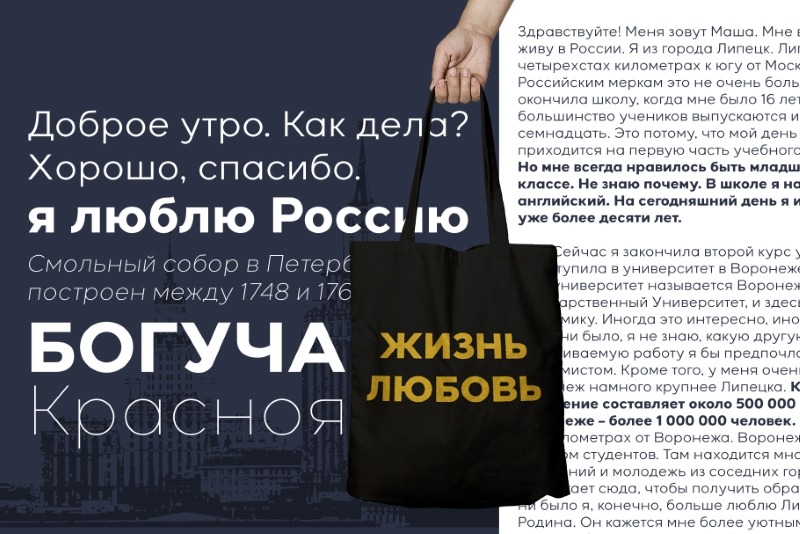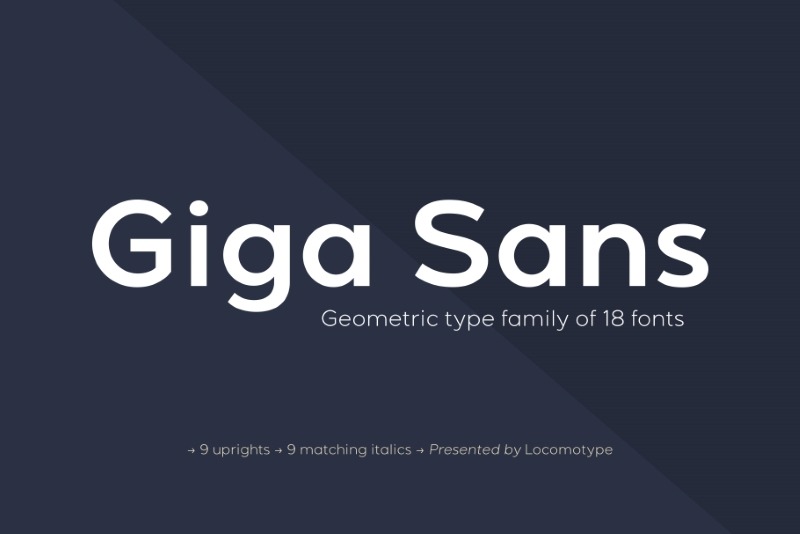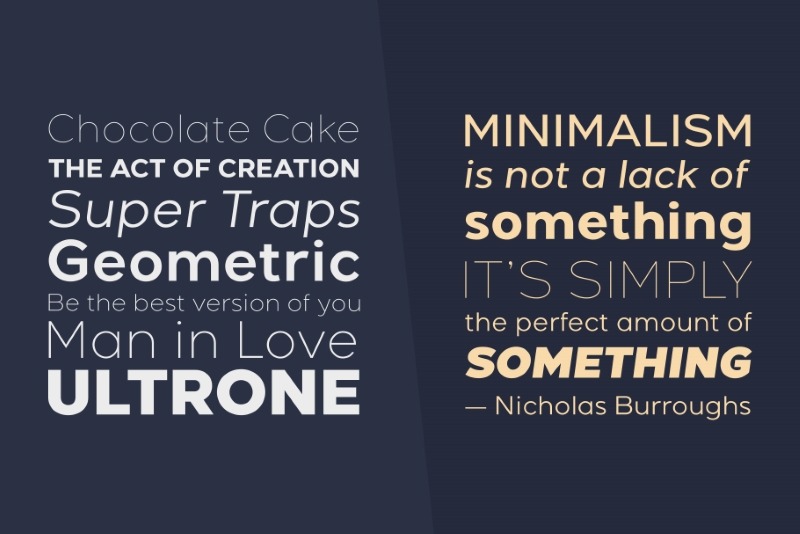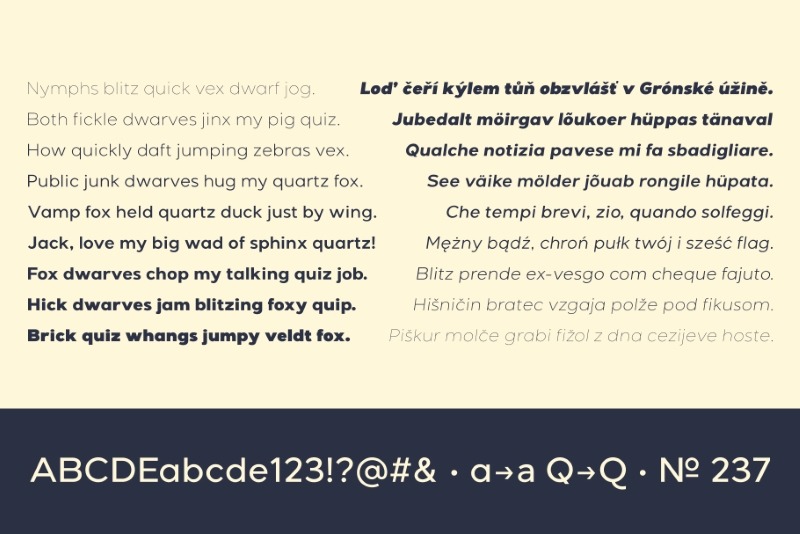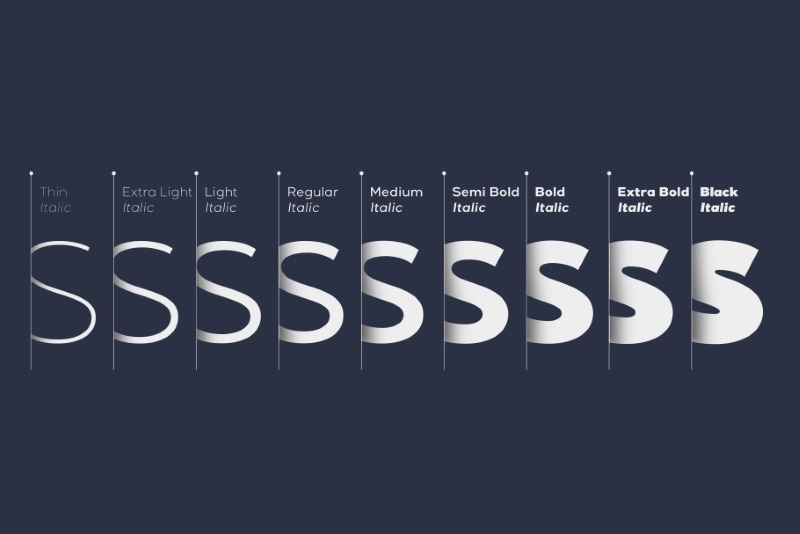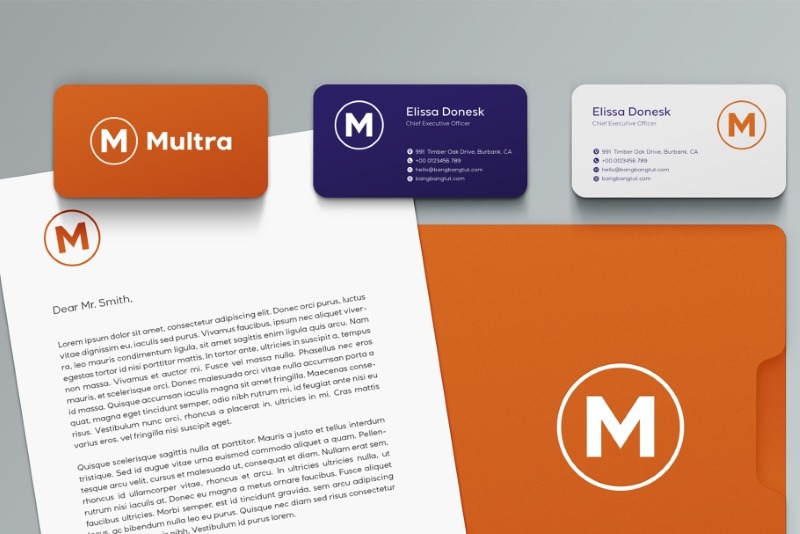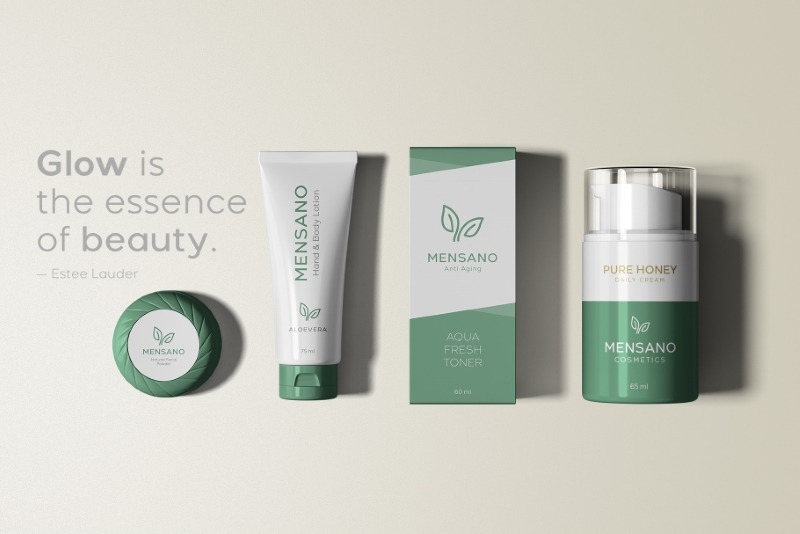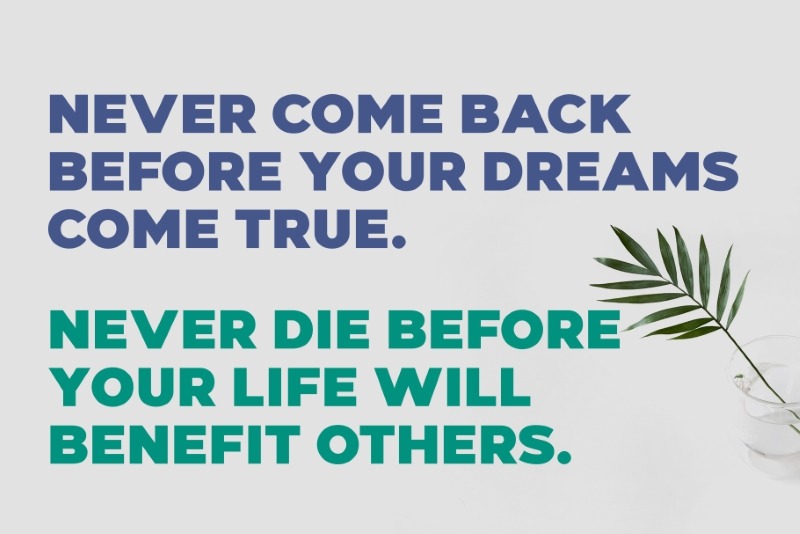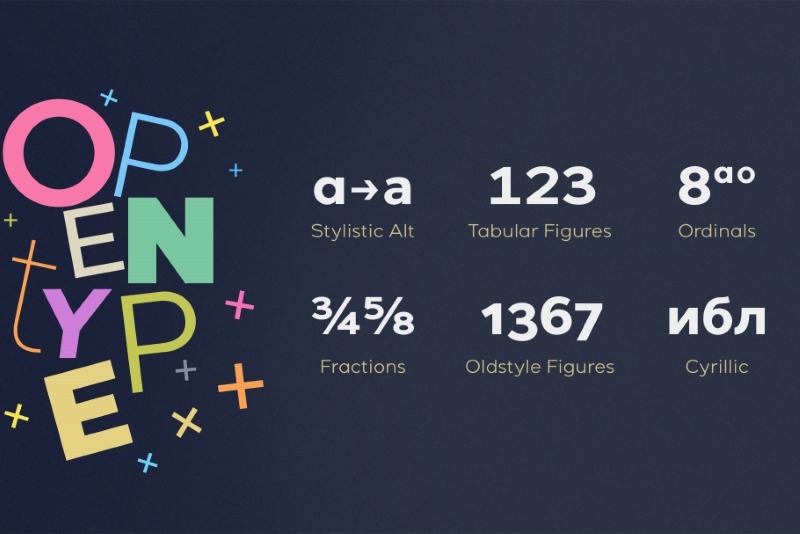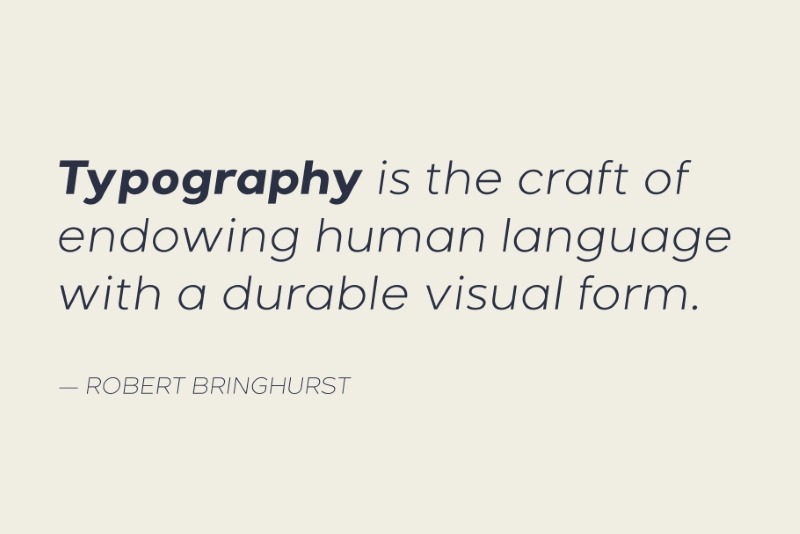
Get a professional sans serif font family today with this offer featuring the complete Giga Sans package: 18 fonts in 9 different weights from thin to black as well as matching true italics for each weight
Giga Sans is a great choice for strong headlines as well as long paragraphs such as news content, magazines, brochures, catalogs - it also includes a variety of OpenType features such as stylistic alternates, old style figures, tabular figures, fractions, localized forms, superscripts, subscripts as well as language support for Western Europe, Central/Eastern Europe, Baltic, Turkish, Romanian and Cyrillic alphabets.
- 9 upright weights from Thin to Black
- Matching true italics
- 590+ glyphs
- Supports Cyrillic alphabets
- OpenType features - stylistic alternates, old style figures, tabular figures, fractions, localized forms, superscripts/subscripts